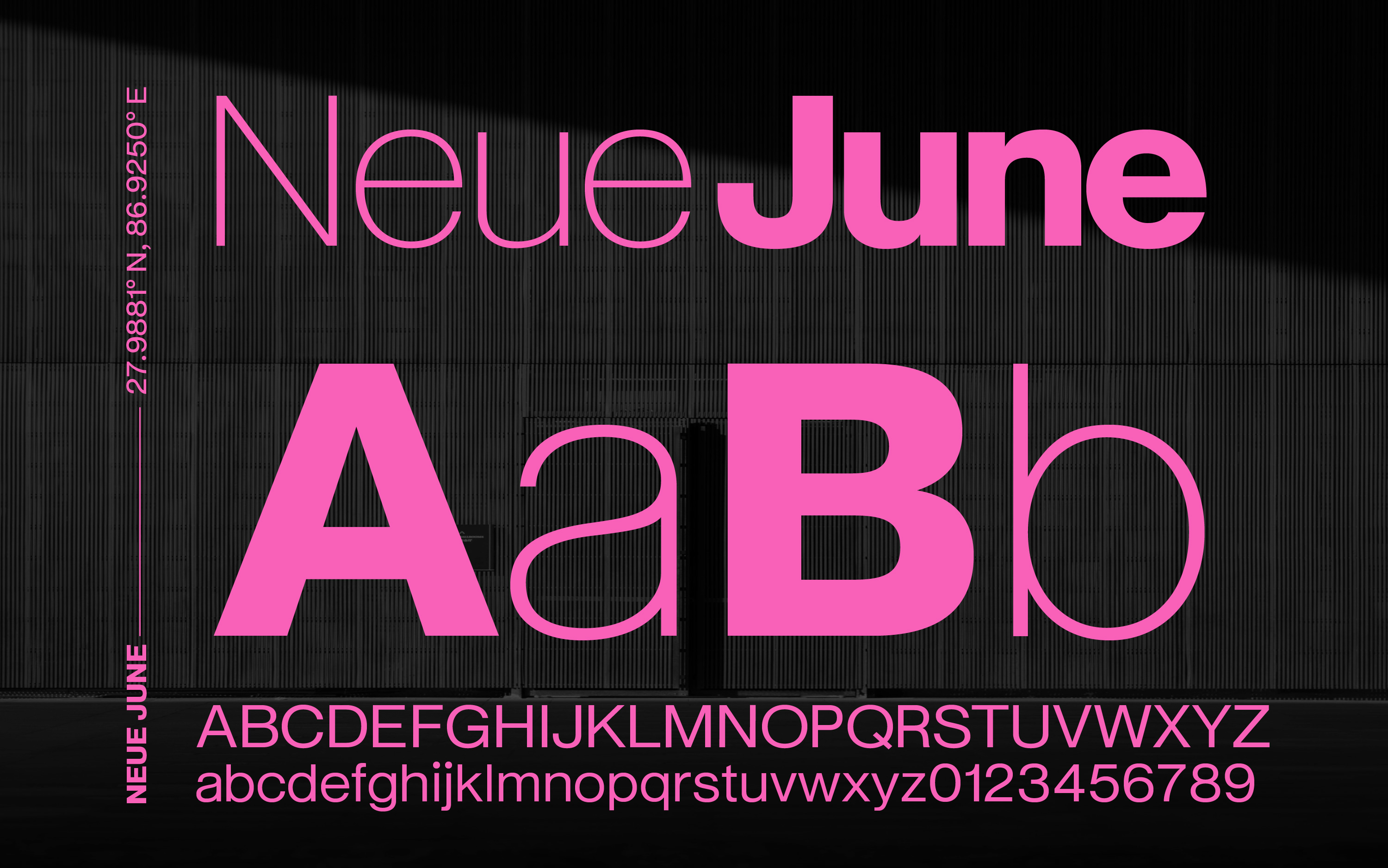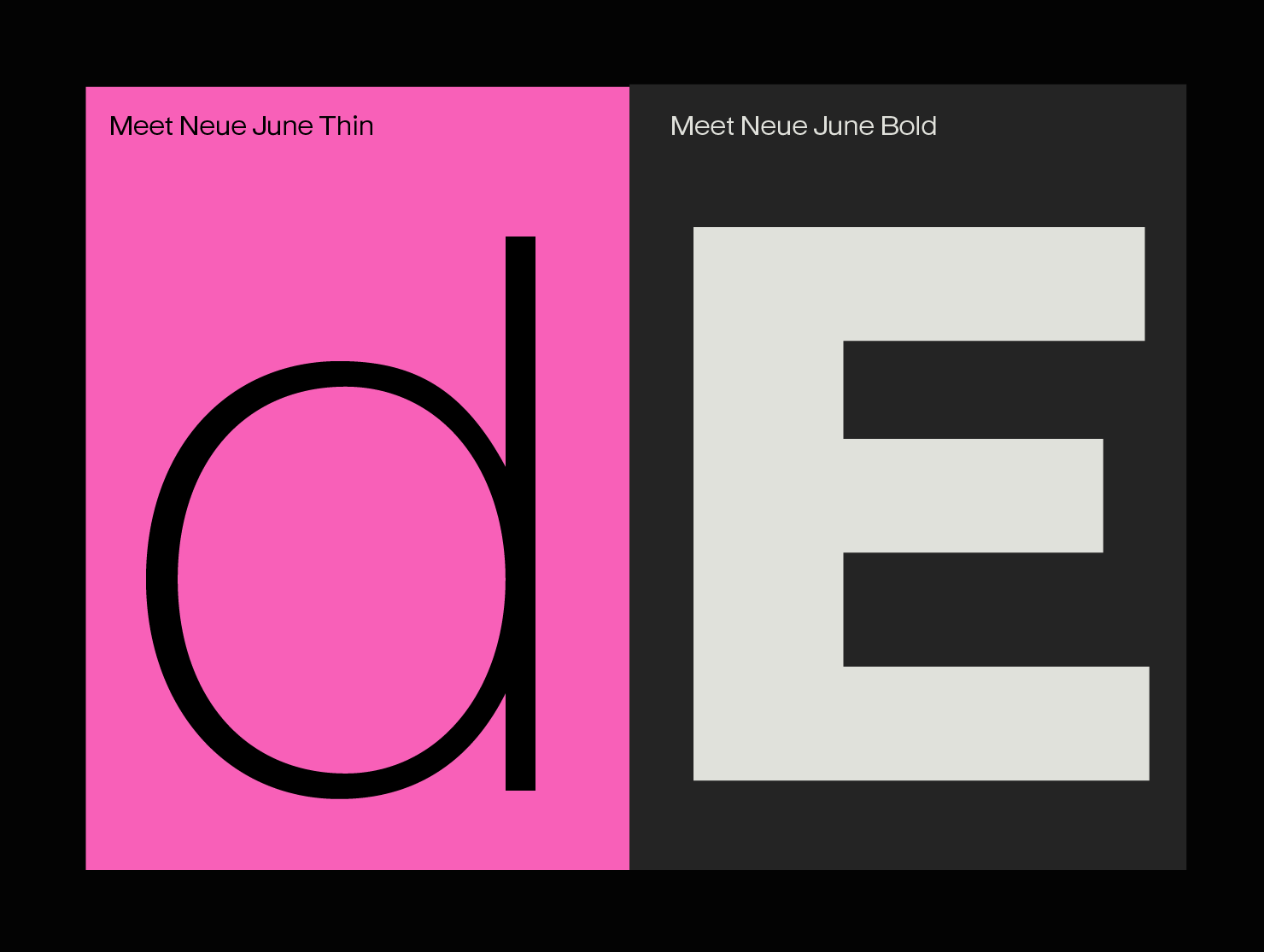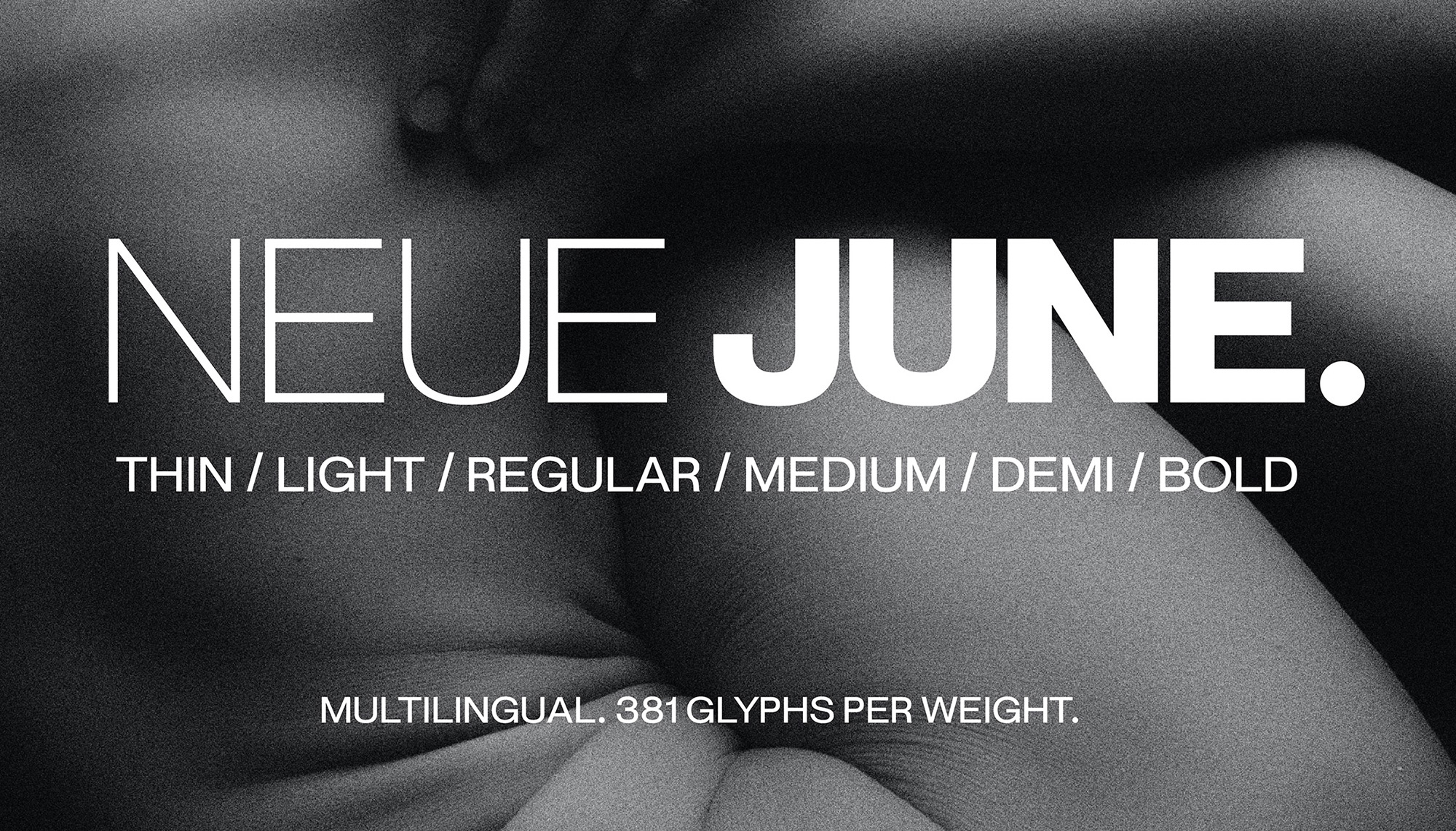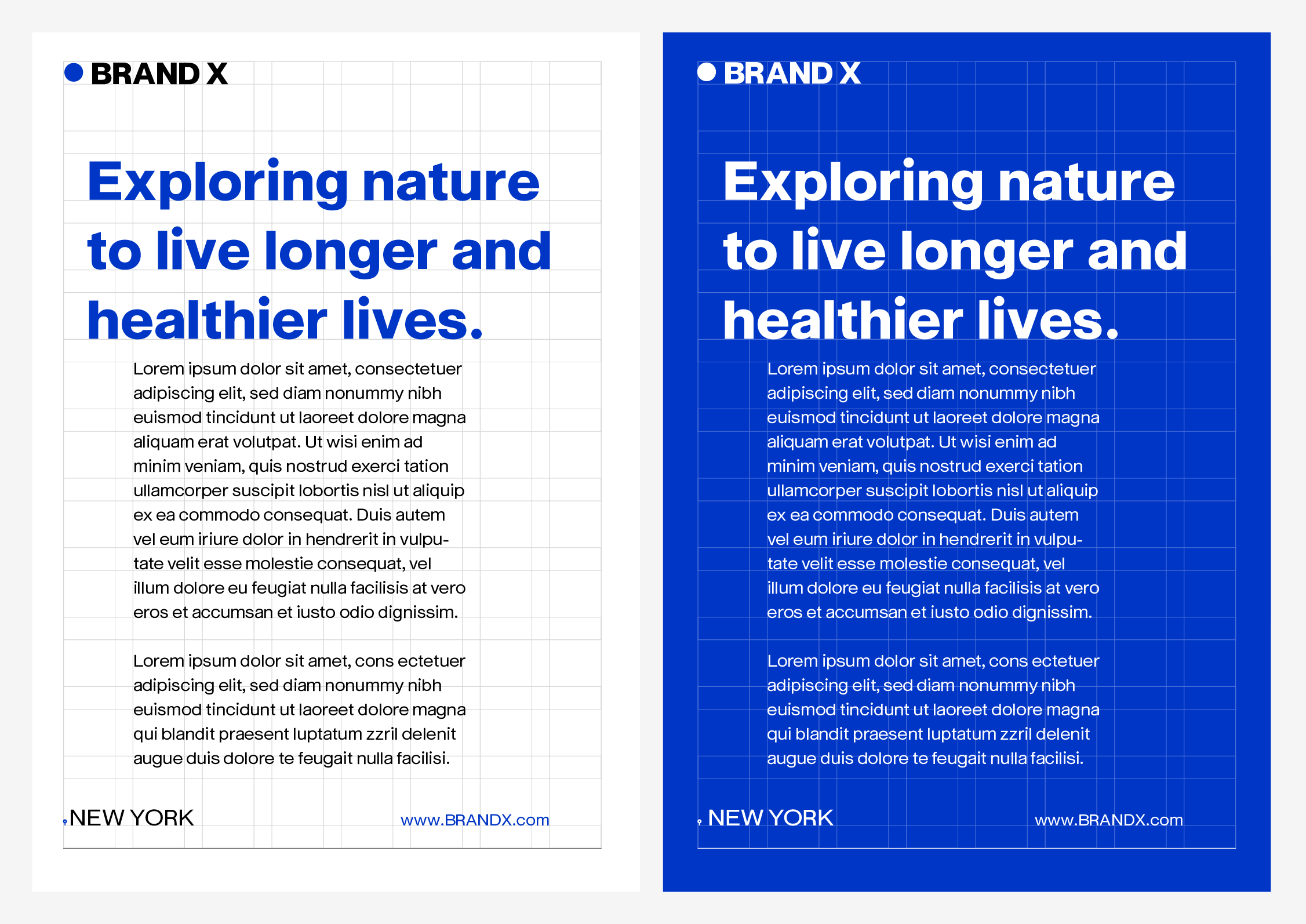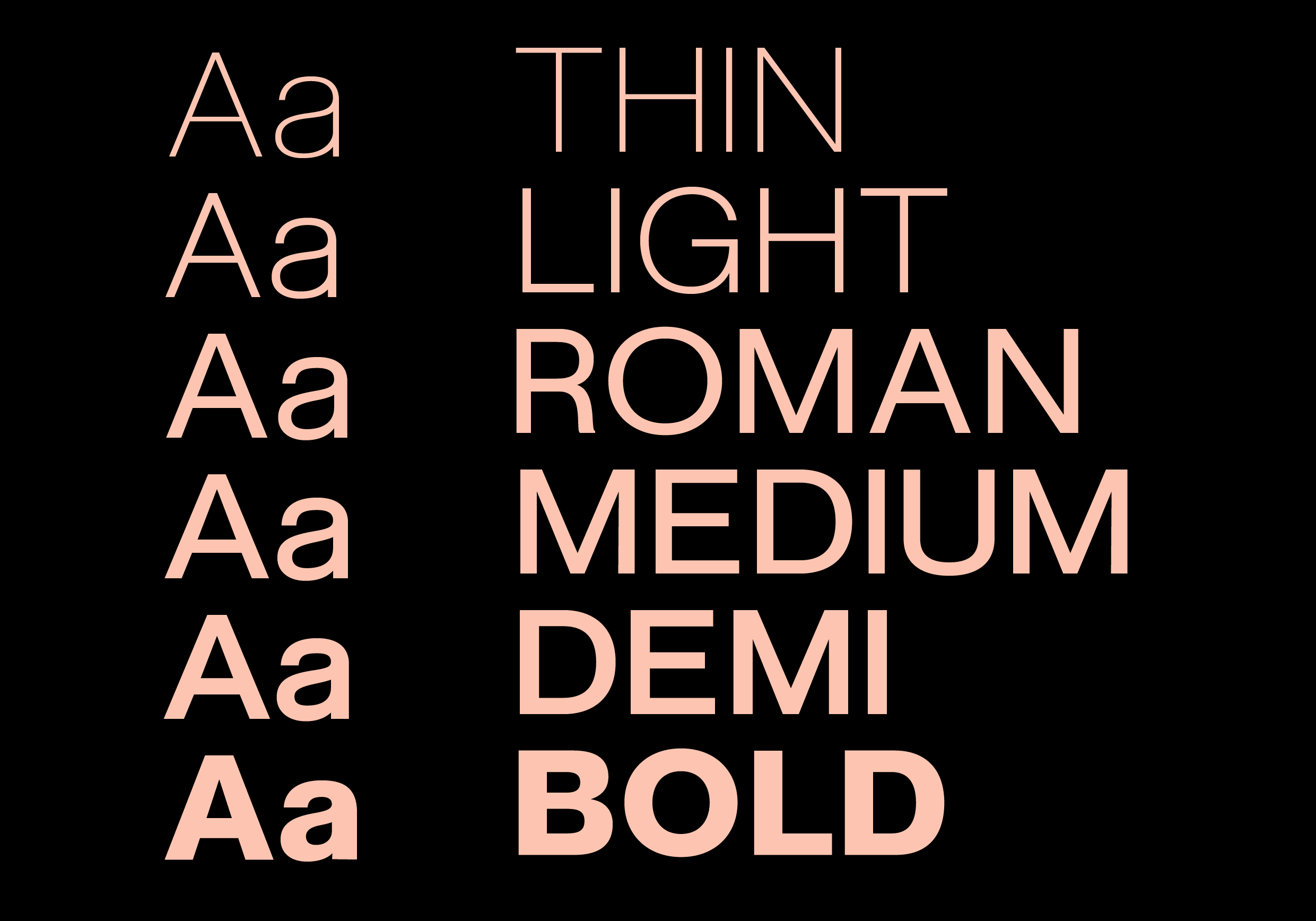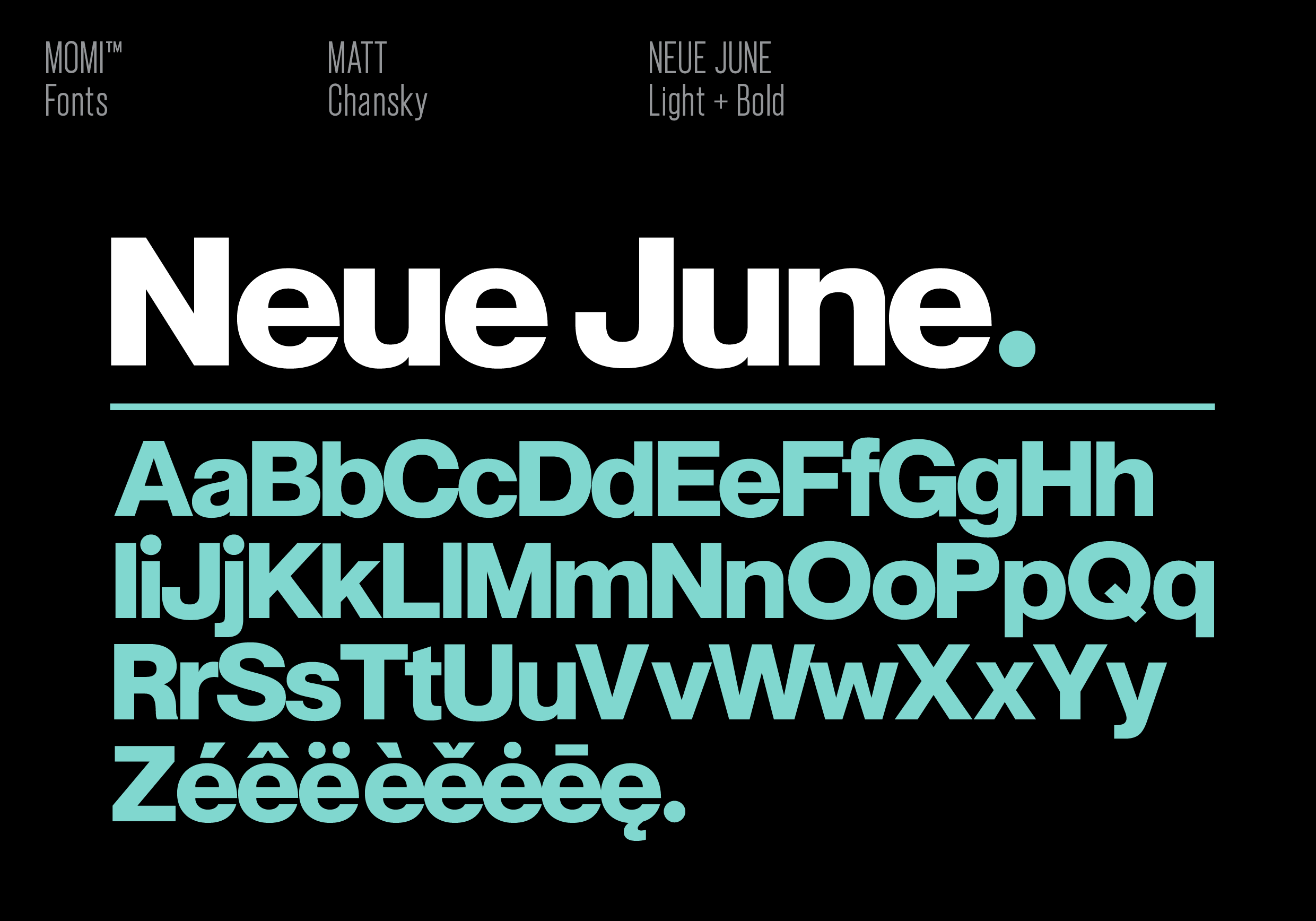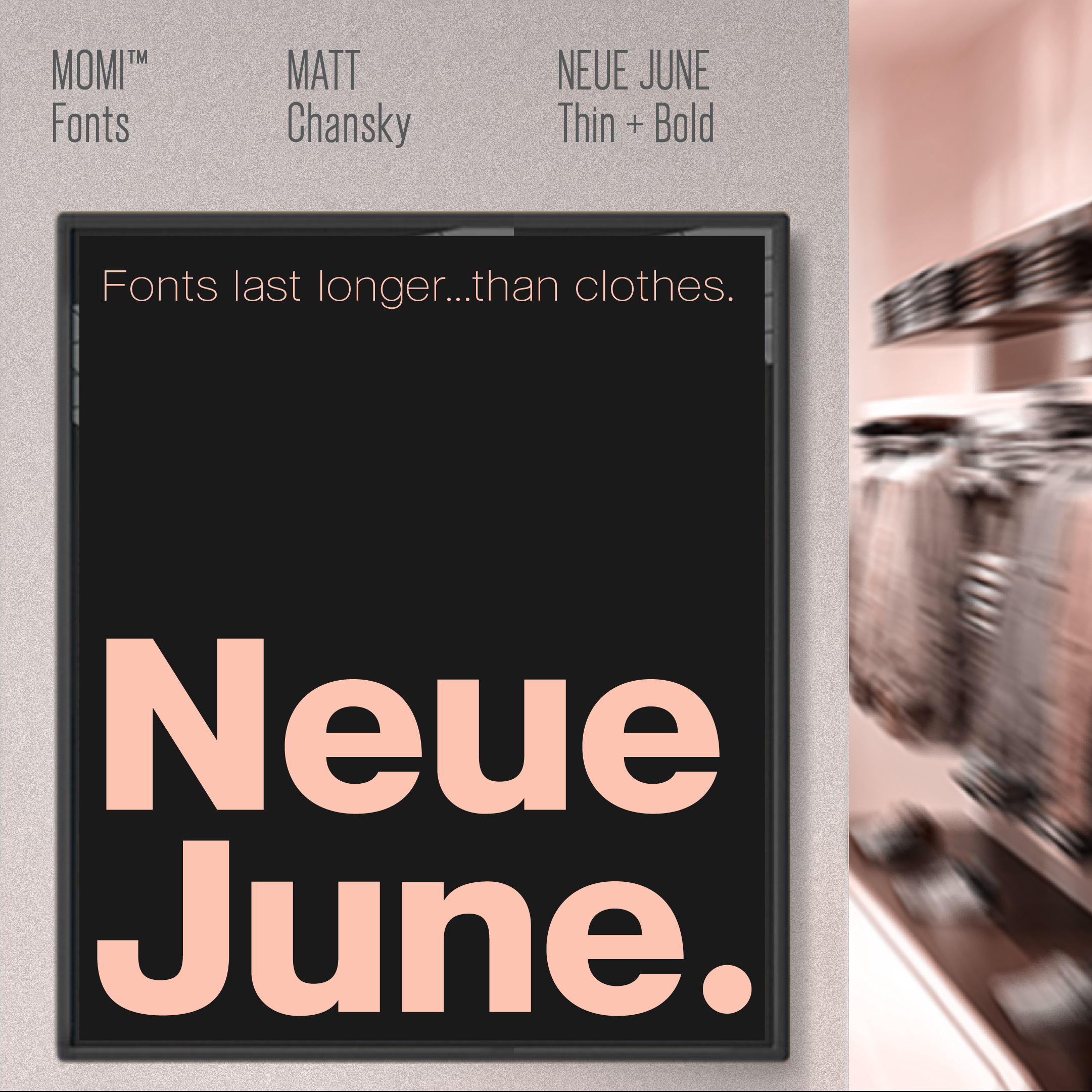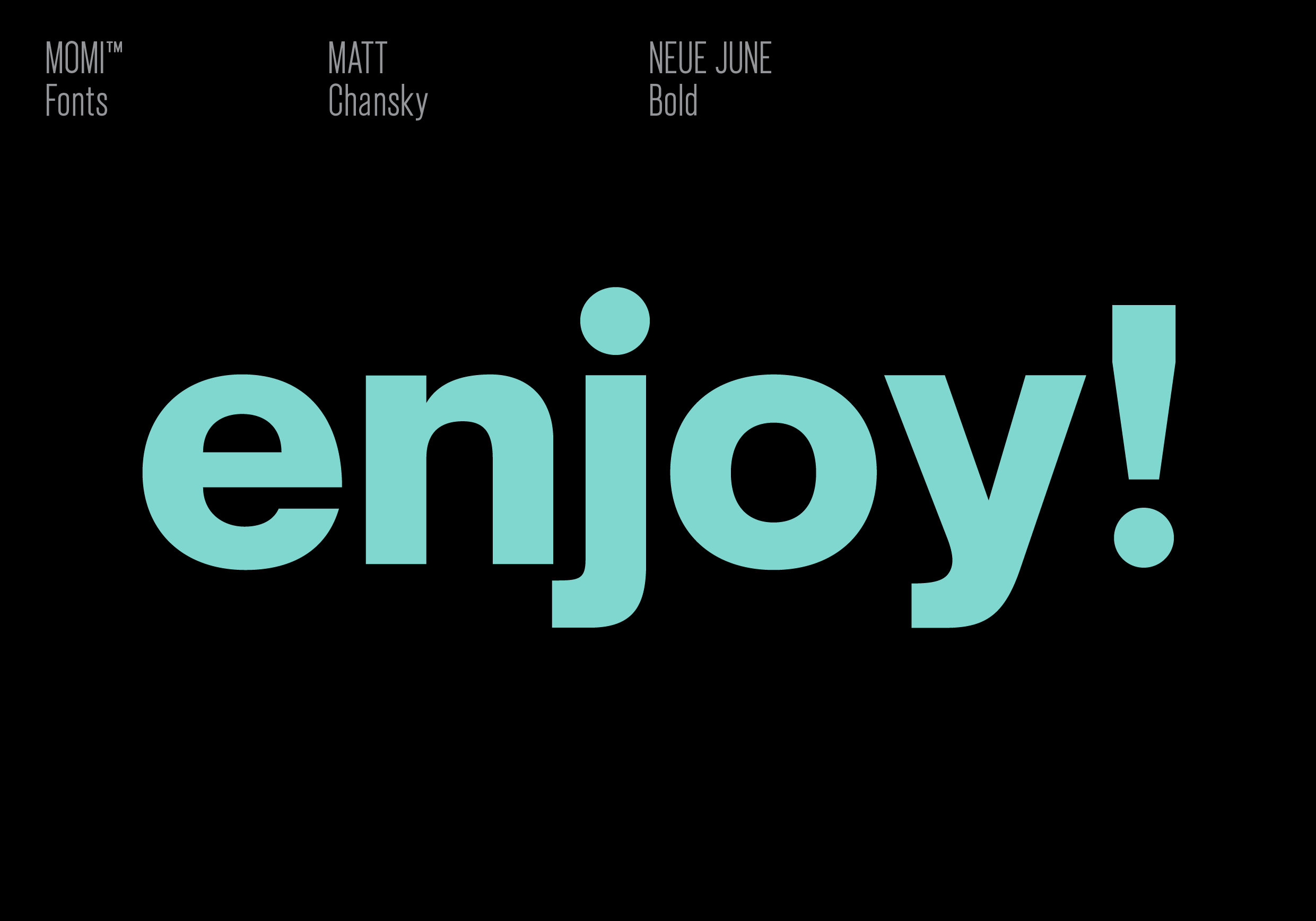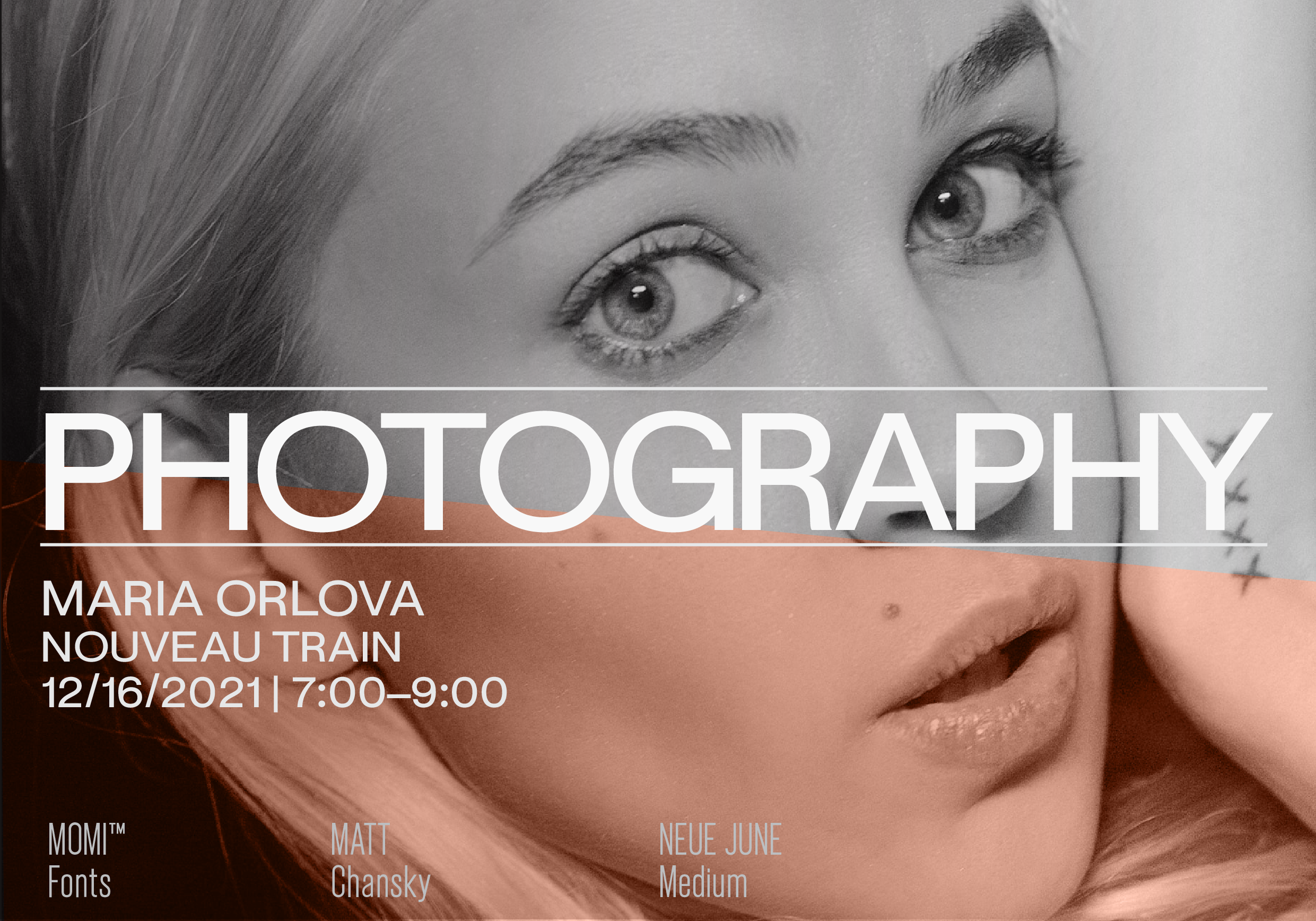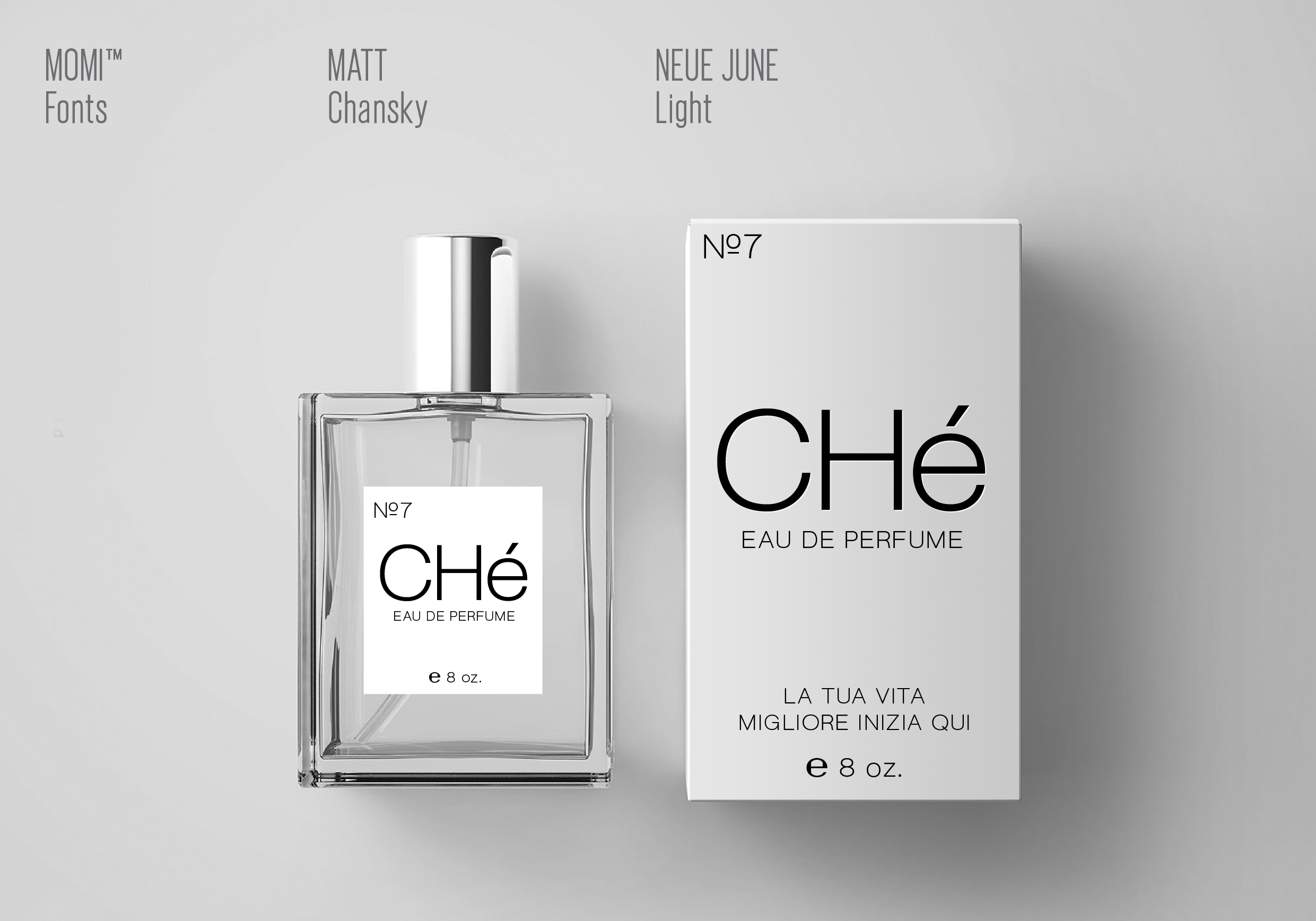
Neue JuneSANS SERIF
Neue June Sans Serif
Neue June is a fresh faced alternative in a sea of Helvetica legacy fonts. The signature innovative high x-height and round punctuation help designers craft approachable and credibile layout creative. Neue June, designed by Matt Chansky, is print, screen, and PDF-friendly. Foreign-language-friendly. Nearly 400 glyphs. Now available exclusively through Monotype. Explore Neue June today.
- Thin, Light, Roman, Medium, Demi, Bold
- Special characters like the estimated glyph for package design
- Nearly 400 glyphs per individual weight